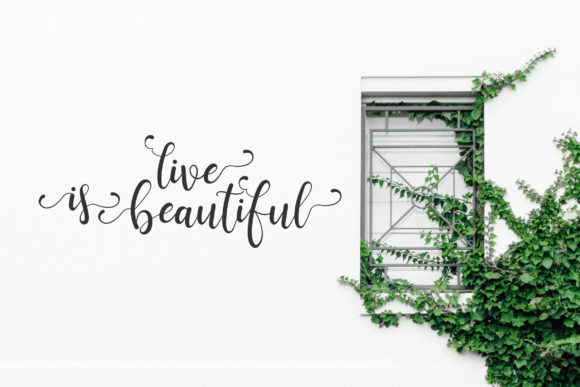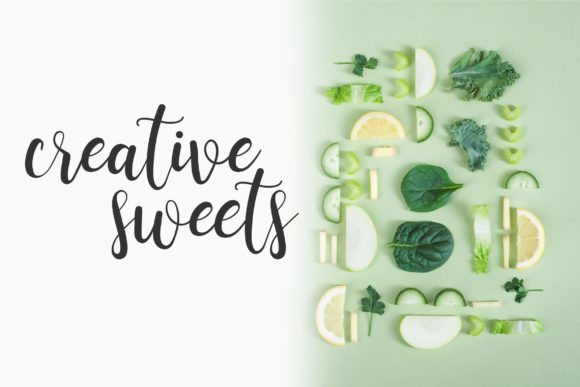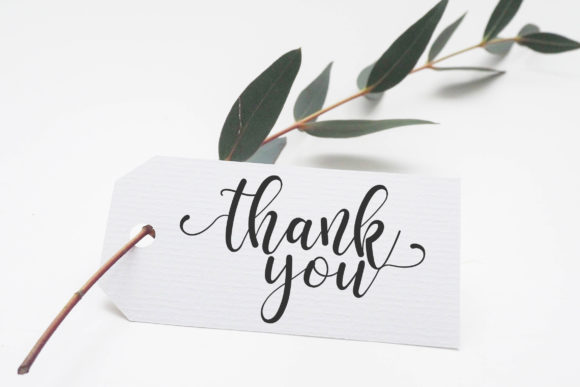
Introduction to Ravenala Font
As a designer, there’s nothing quite like the thrill of discovering a new font that perfectly captures the essence of your creative vision. For me, that moment came when I stumbled upon the Ravenala Font. Its playful, cute script radiates authenticity, making it the perfect addition to any design project. With its gorgeously light letters and swashes, this font exudes elegance and sophistication, while its PUA encoding ensures that all the magical glyphs and swashes are easily accessible.
Whether you’re working on a high-quality design resource, a free download for a creative project, or simply need a unique font for your next design challenge, the Ravenala Font is an invaluable asset. Its wealth of special features, including alternate glyphs and ligatures, makes it a versatile and valuable tool for designers looking to add a touch of personality to their work.
About the Ravenala Font
Ravenala Font
- Features a clean and modern design, making it suitable for a wide range of creative projects, from logos to typography.
- Unique characteristics include a minimalist aesthetic and a wide range of glyphs, making it an excellent choice for creative projects.
Honest Review: Ravenala Font
As a designer, I’ve had the chance to work with a variety of fonts, but the Ravenala Font has caught my attention recently. This free download is definitely a great addition to any design resource.
What works well: ✨ The Ravenala Font has a unique and elegant design that makes it perfect for creative projects, especially those that require a touch of sophistication. The font is also highly customizable, allowing designers to experiment with different styles and layouts.
The font’s high quality is evident in its smooth lines and intricate details. The transparent background makes it easy to combine with other design elements, giving designers a lot of flexibility when working on a project.
Limitations: ⚠️ One of the limitations of the Ravenala Font is that it may not be suitable for all types of projects. The font’s style is quite ornate, so it may not be the best choice for simple or minimalist designs.
Overall, I’m impressed with the Ravenala Font. It’s a great design resource that can add a touch of elegance to any creative project. While it may have some limitations, it’s definitely worth considering for designers looking for a unique and high-quality font.
- Highly customizable design
- Unique and elegant style
Ravenala Font
The Ravenala Font is a high-quality design resource ideal for creative projects that require a unique touch. With its transparent background, this font is perfect for layering and customization.
The Ravenala Font is ideal for creative projects such as:
- Logo creation